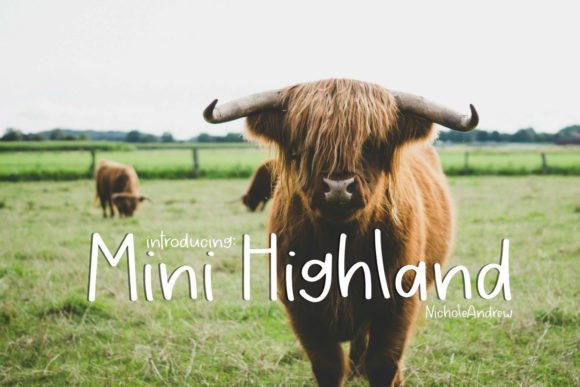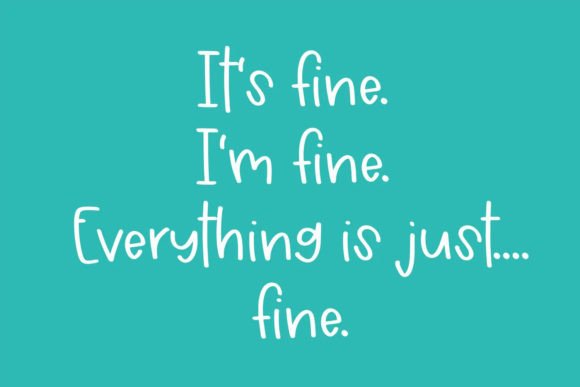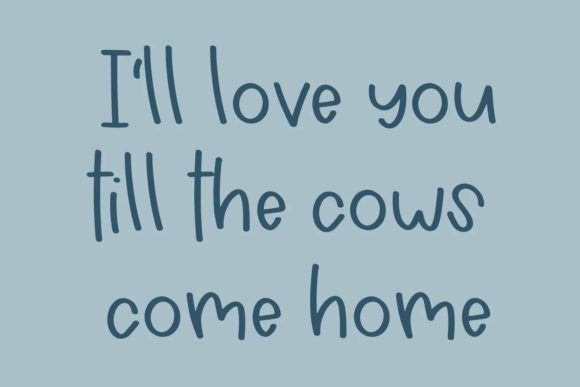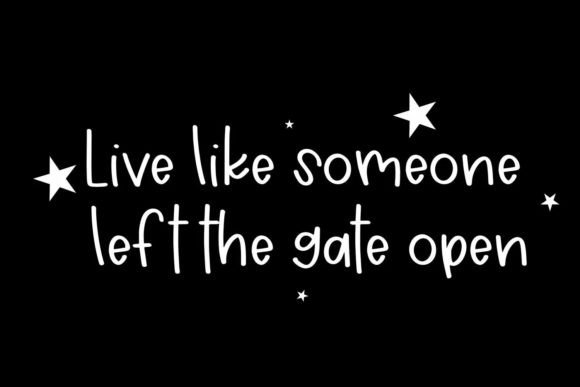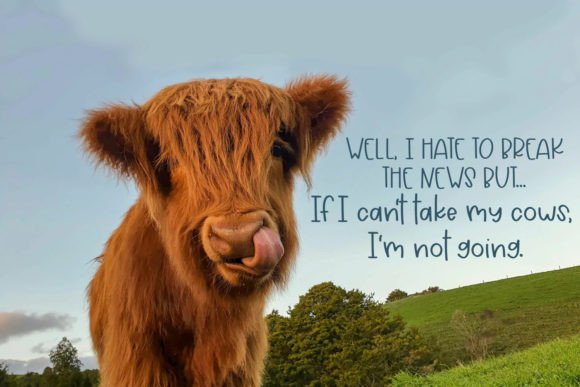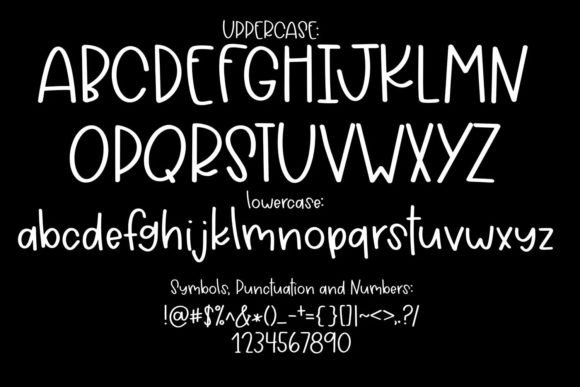
Mini Highland Font
About Mini Highland Font
“Introducing Mini Highland, an adorable handwritten font that brings a touch of charm to your projects. Mini Highland is a versatile font that can enhance a variety of creations, from water bottles and notebooks to designs and more! Plus, it’s optimized for use with cut machines, ensuring clean and precise cuts with its optimized nodes.
The adorable handwritten style of Mini Highland adds a warm and friendly vibe to your text, making it perfect for projects where a playful and inviting look is desired. Whether you’re working on DIY crafts, personalized items, or creative designs, Mini Highland brings a delightful touch to your creations.
One of the standout features of Mini Highland is its suitability for cut machines. The font has optimized nodes, making it well-suited for cutting with precision. This is especially beneficial for projects such as vinyl decals, paper crafts, and other applications where clean and accurate cuts are essential.
Consider using Mini Highland on water bottles to create personalized and charming designs. It’s also a great choice for notebooks, adding a touch of whimsy to your written creations. The font’s versatility allows it to adapt to various design needs, making it a valuable asset in your creative toolkit.
Whether you’re crafting designs for personal use or business projects, Mini Highland is ready to bring a delightful and handwritten charm to your creations. Its optimized nodes make it a practical choice for those working with cut machines, ensuring that your projects achieve a professional and polished look.
In summary, Mini Highland is more than just an adorable font; it’s a versatile and practical tool for a variety of projects. From water bottles to notebooks, this handwritten font is ready to infuse your creations with a touch of charm and precision, making each project uniquely delightful.”